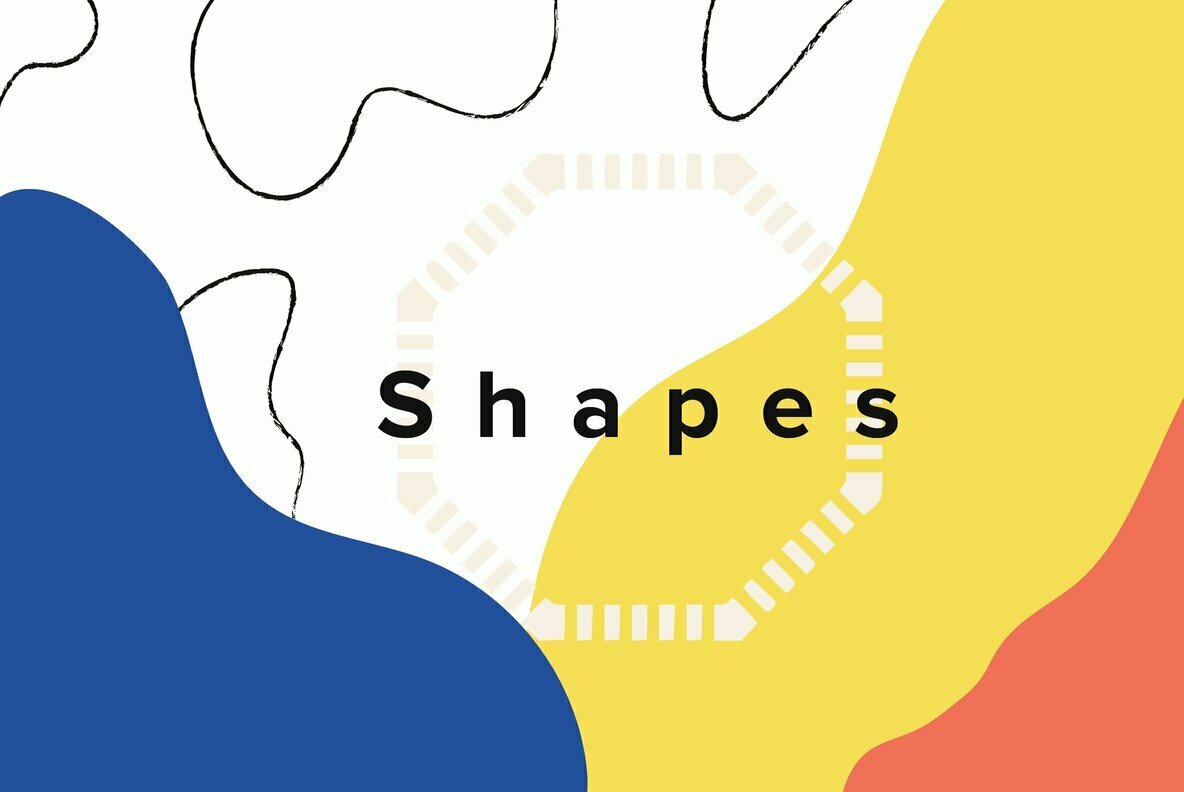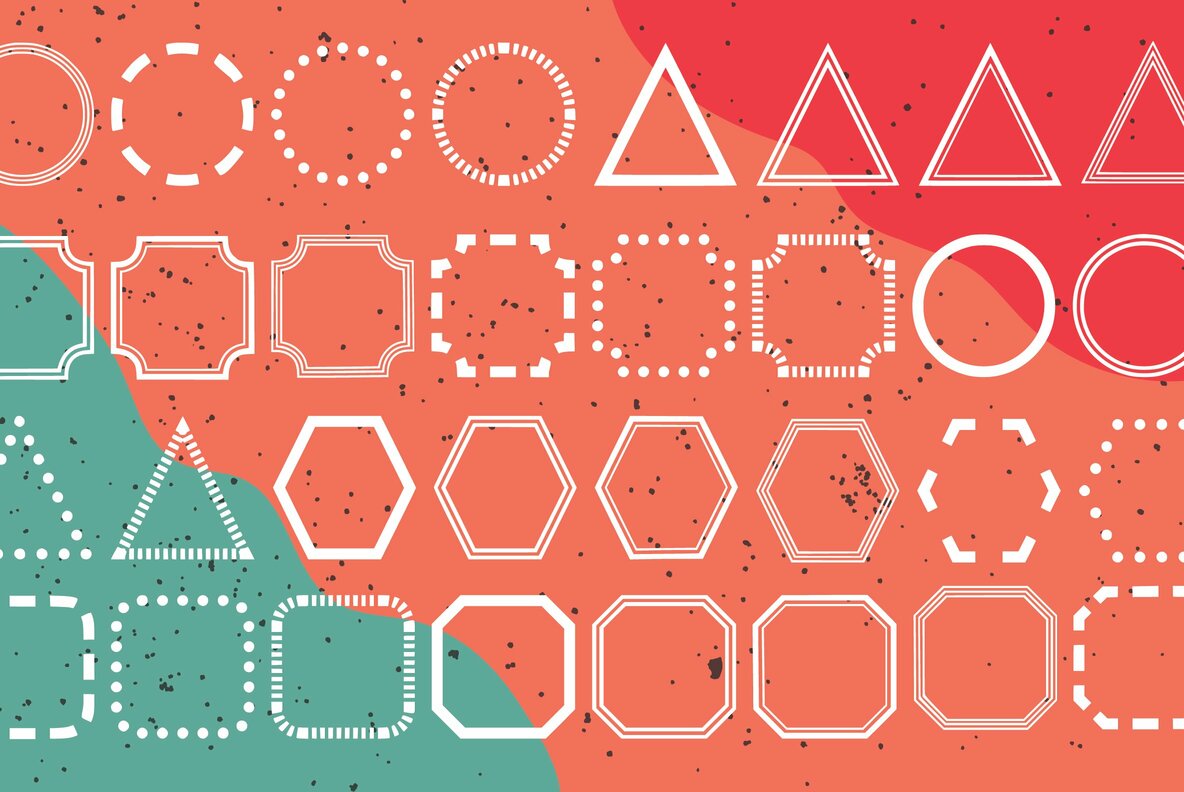
Graphic Shapes Font
Graphic Shapes Light
Graphic Shapes Regular
Graphic Shapes Bold
Graphic Shapes Glyph is an amazing dingbats font, consisting of awesome and one-of-a-kind glyphs! Get inspired by this unique font, and turn any design project into a stand out!